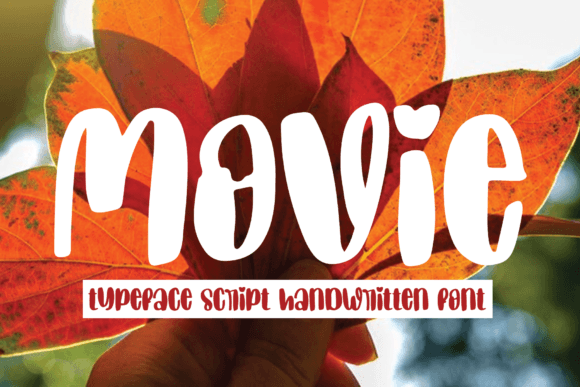
Introducing Movie Font, the playful and charming handwritten display font that will add a touch of whimsy to your creations. Whether you're a designer crafting a captivating fashion website or a blogger seeking a unique way to express yourself, Movie Font is your perfect companion.
With its delightful curves and enchanting style, this font will captivate your audience from the very first glance. Its cheerful nature is like a breath of fresh air, inviting you to explore the world of imagination and creativity.
Movie Font is more than just a font; it's a versatile tool that empowers you to make a lasting impression. Its enchanting strokes are designed to ignite your inspiration, allowing you to create designs that resonate with your audience on a deeper level.
Whether you're crafting social media posts that sparkle with personality or designing packaging that exudes charm, Movie Font has the power to transform your ideas into captivating realities. Its ability to evoke emotions and create a sense of wonder makes it the perfect choice for projects that demand a touch of magic.
Join the creative revolution and let Movie Font be your guide. Its enchanting aura will inspire you to push the boundaries of your imagination and create designs that dance with joy and captivate all who encounter them.